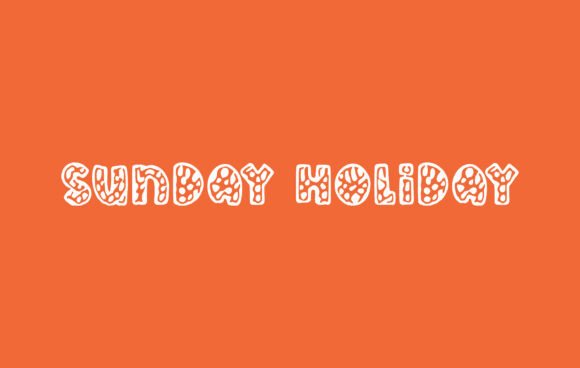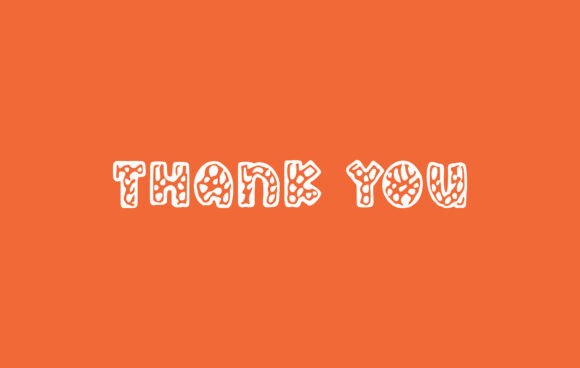
Introduction to Neonquirk Font
NeonQuirk is a fun and quirky decorative font packed with playful energy.
Each letter is filled with unique neon-style doodles and bubbly shapes, making it perfect for party invitations, kids’ designs, creative branding, and anything that needs a burst of personality .
Key Features of Neonquirk Font
Why Choose Neonquirk Font?
Neonquirk Font offers exceptional quality and versatility, making it a valuable addition to your design toolkit. Whether you’re creating for personal projects or commercial use, Neonquirk Font delivers professional results.